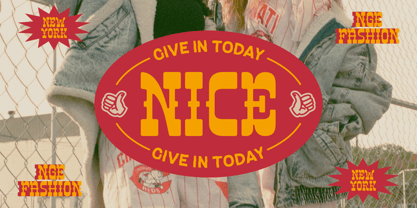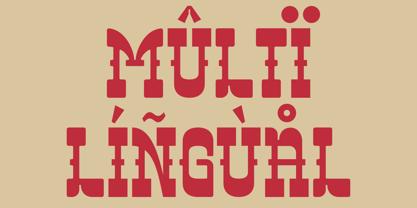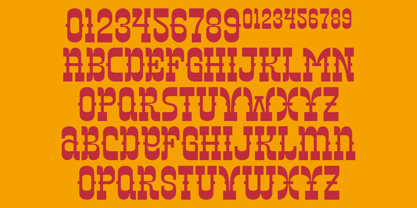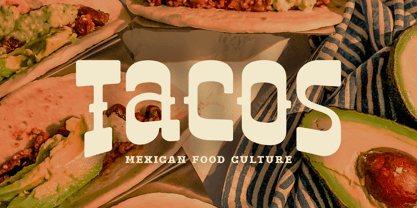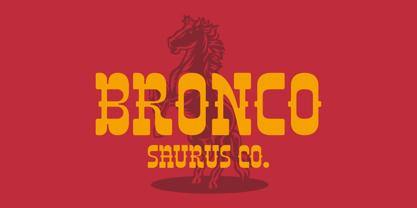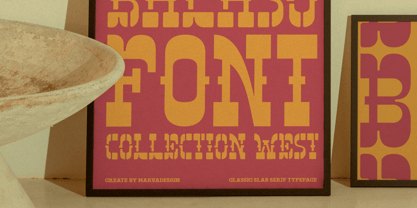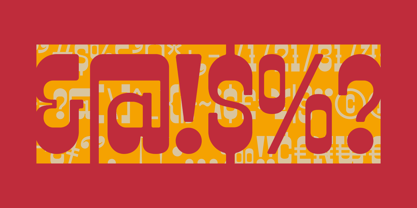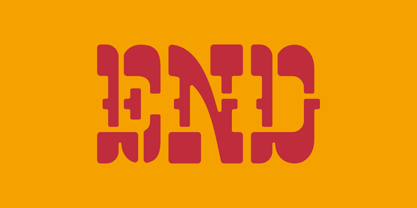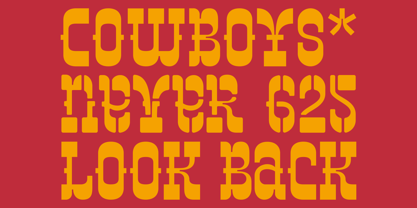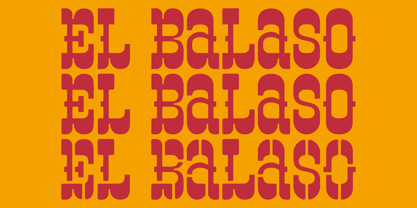
El Balaso
by Marvadesign
The El Balaso Font Family was designed by Febrie Setiawan and published by Marvadesign. El Balaso contains 3 styles and family package options. More about this family
Introducing El Balaso a bold and expressive western-style typeface created by Marvadesign. This typeface has a distinctive retro and rugged aesthetic, reminiscent of classic Wild West signs and vintage rodeo posters. El Balaso comes in three unique styles: Regular, Rounded, and Stencil, each of which lends its own flavor while maintaining its strong slab-serif foundation and distinctive curved letterforms. The typeface uses bold vertical strokes, playful serifs, and dramatic contrasts between solid and open forms, making it suitable for branding, fashion editorials, music posters, and nostalgic American themes. The use of vibrant reds and yellows in the presentation further enhances its energetic and attention-grabbing appeal.
Designers: Febrie Setiawan
Foundry: Marvadesign